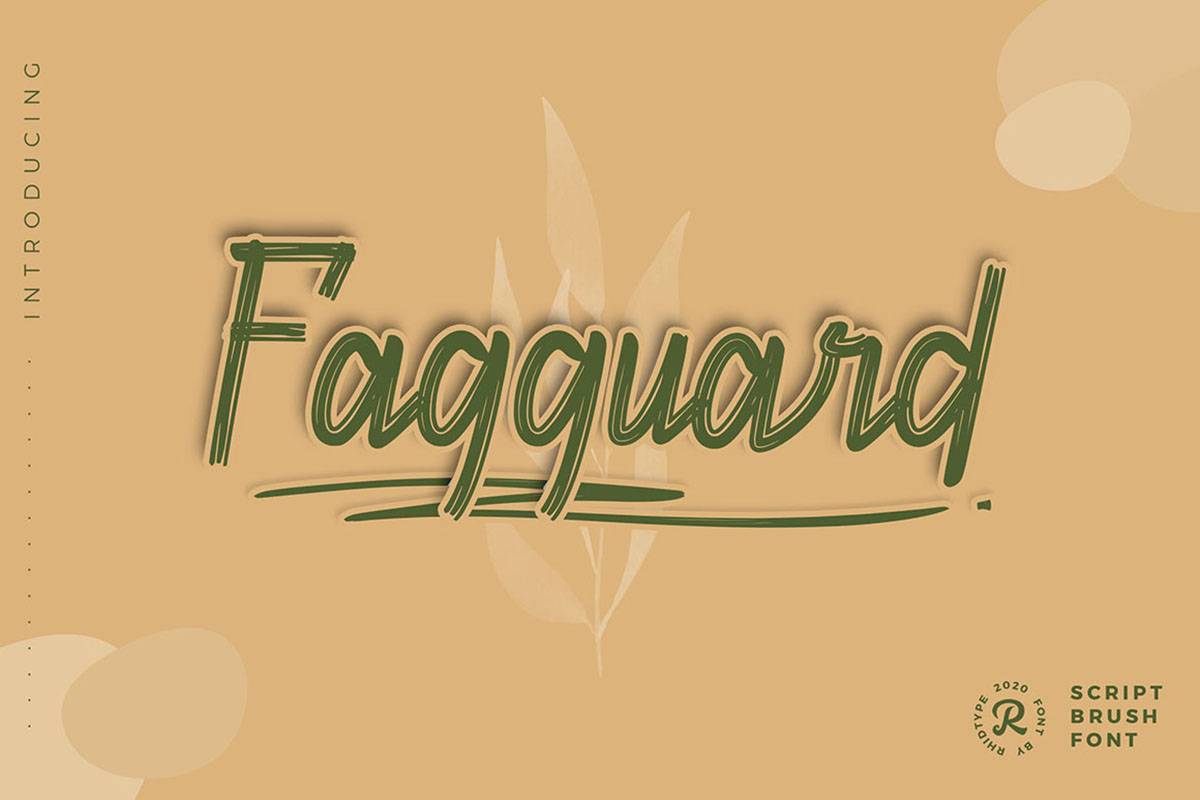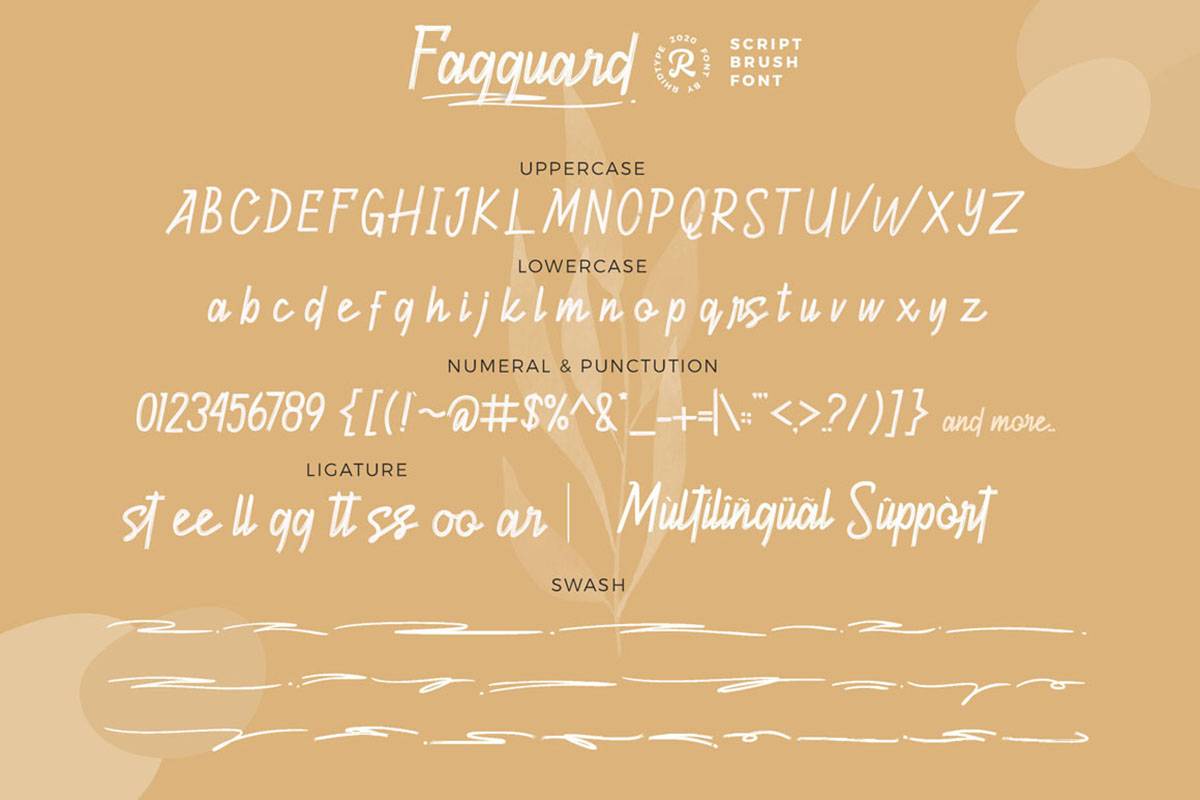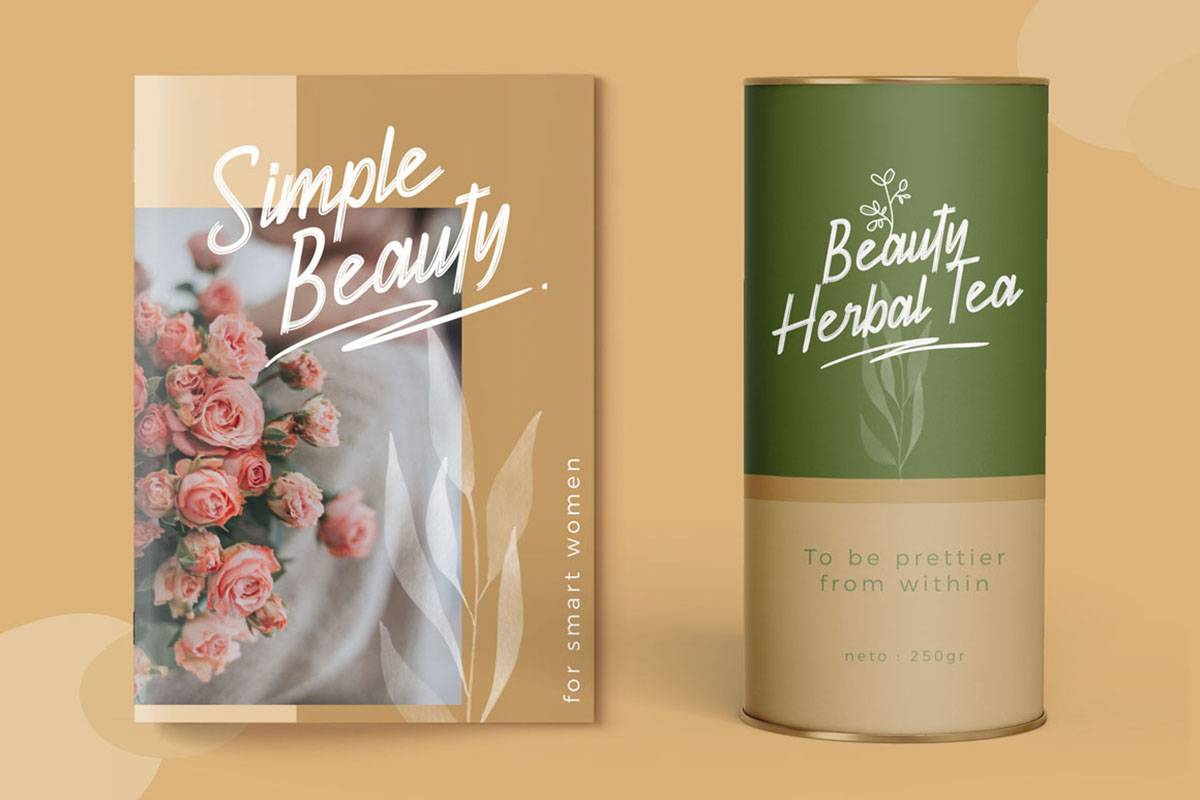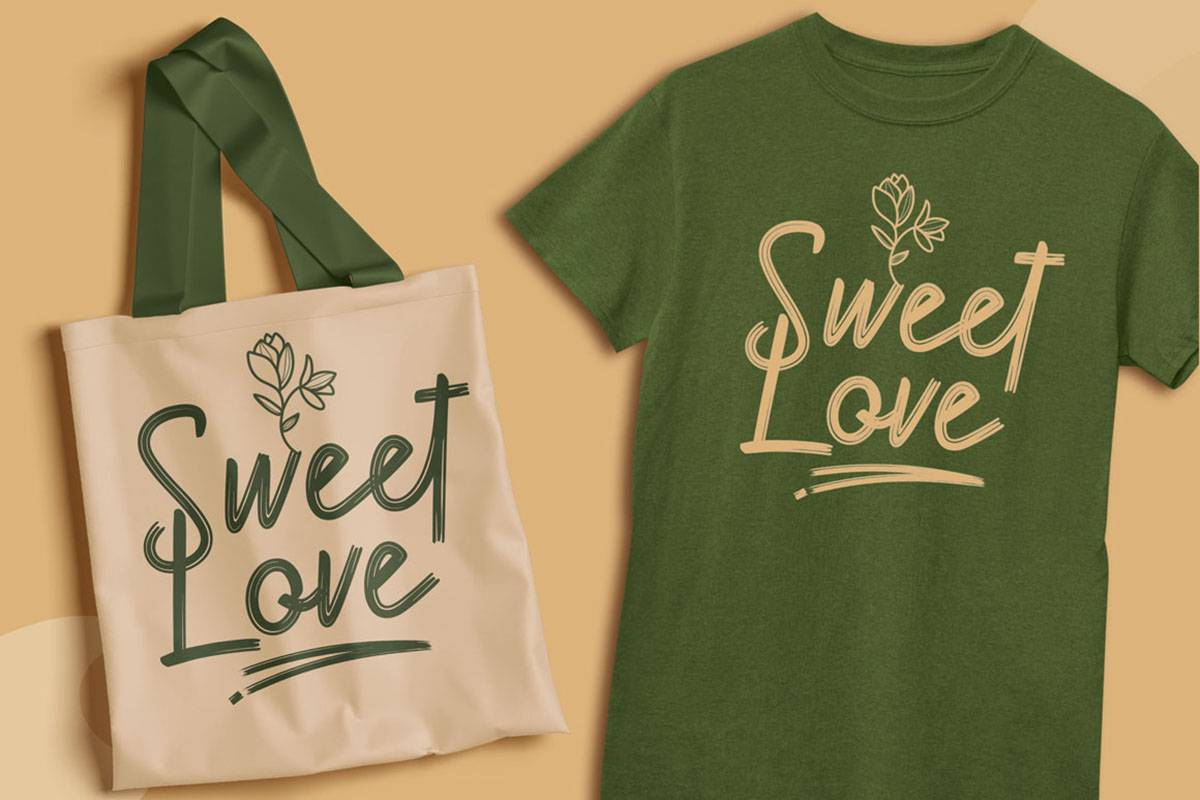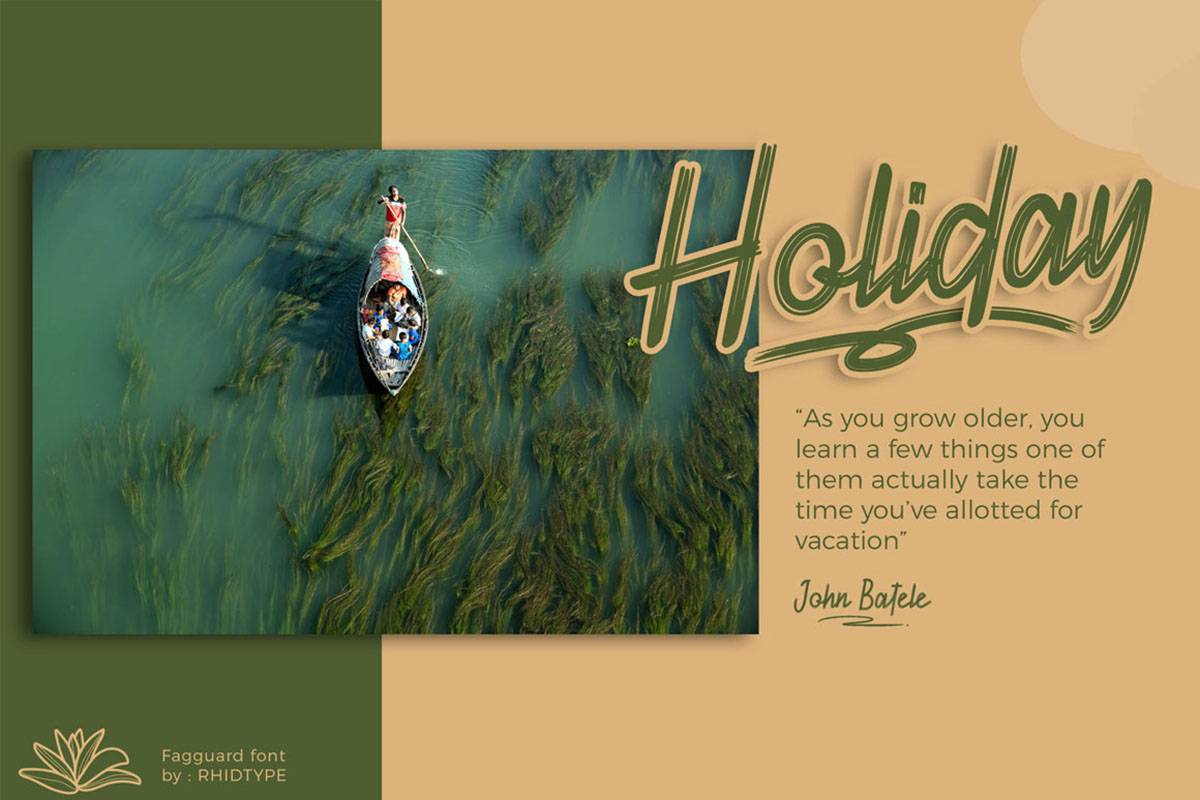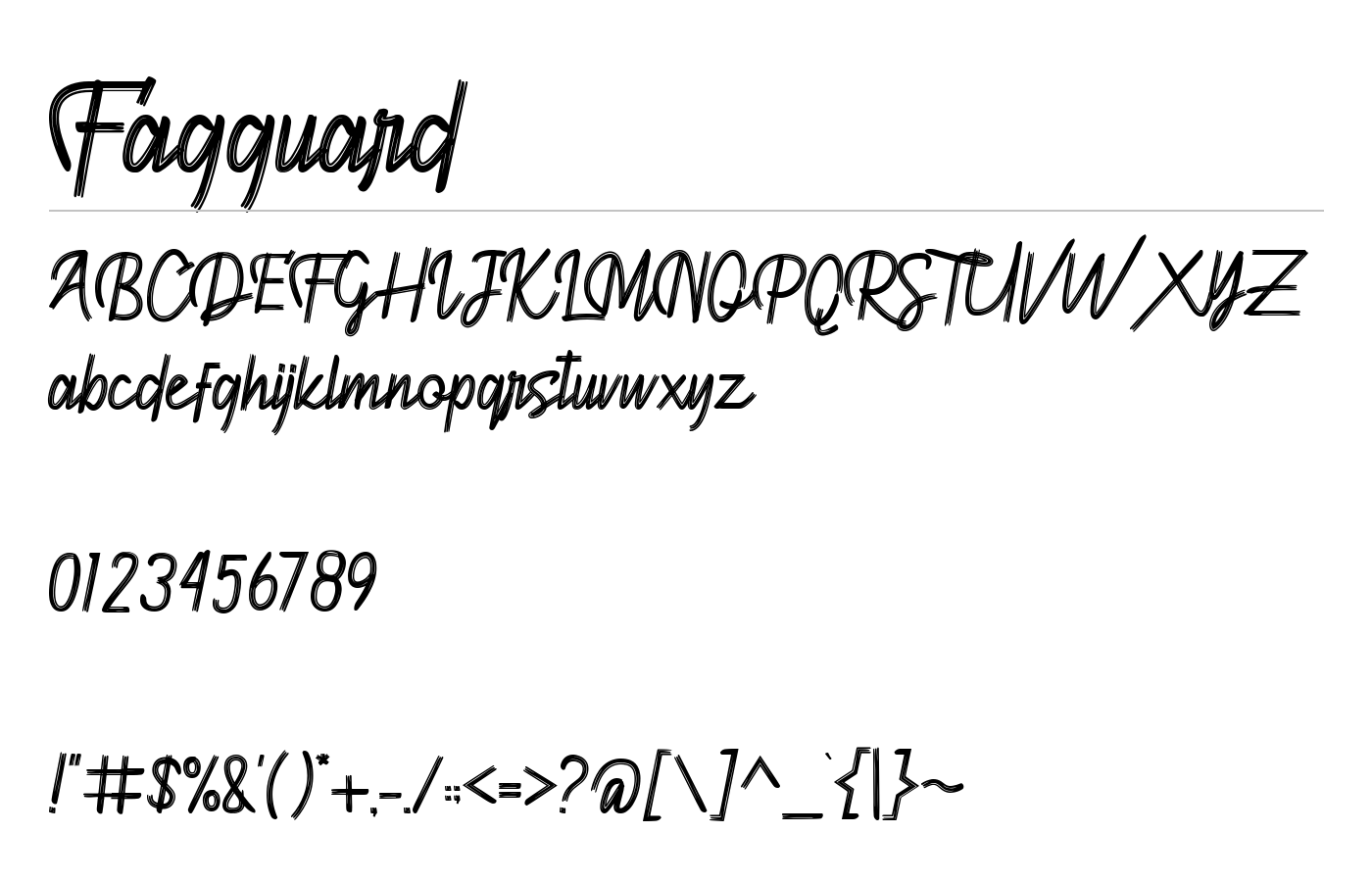
Fagguard is a dynamic and playful script font with a strong hand-drawn character, featuring slender, slightly condensed letterforms with uneven stroke widths that give it an energetic, casual feel. Its unique layering and shadow-like detailing add depth and personality, making it ideal for creative branding, posters, and headlines where a lively, informal touch is desired. This font works well for designs that seek to be engaging and distinctive without losing readability.
Fagguard Font